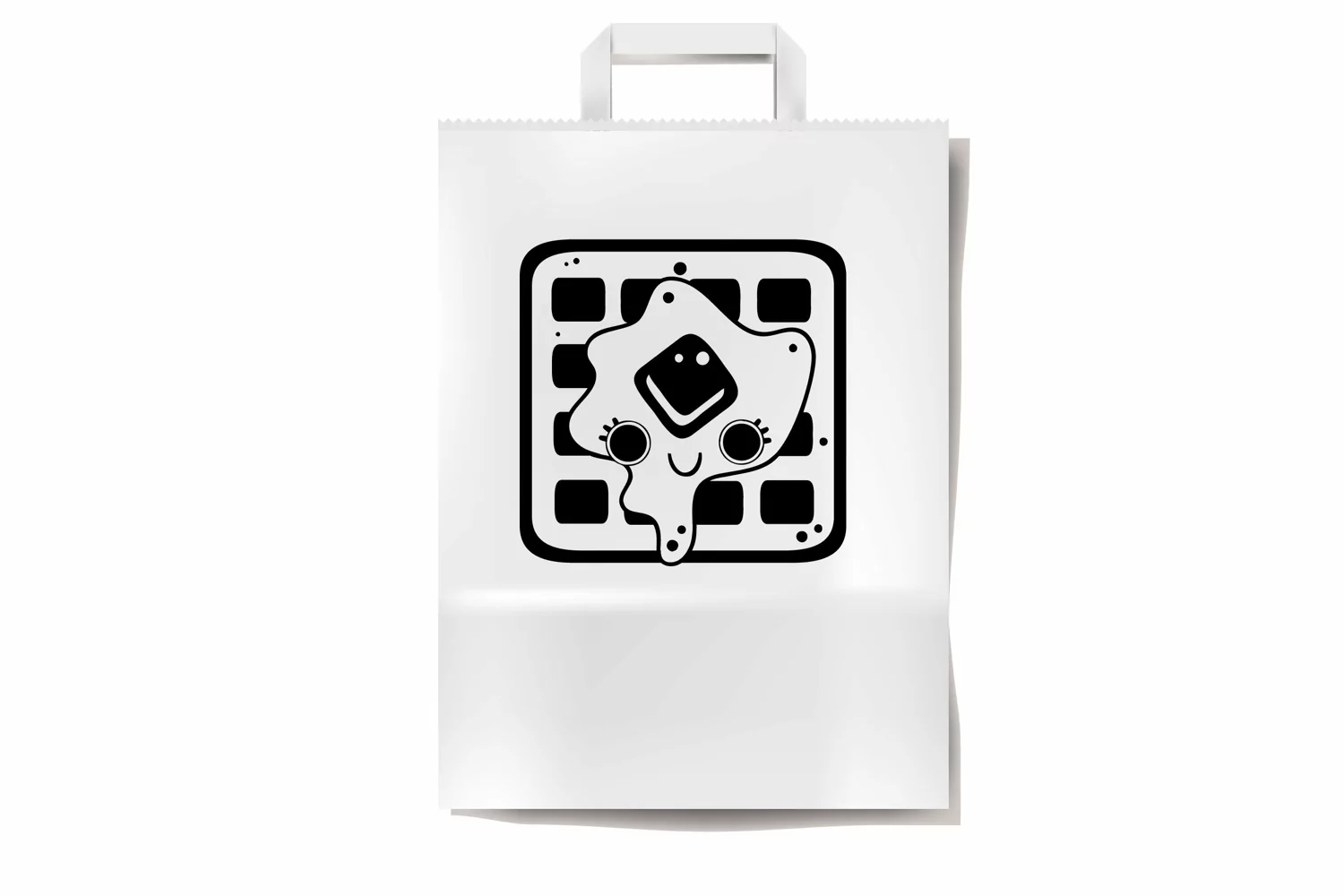
There are two dingbat fonts in this Dollicious bundle. One has 26 adorable dolls feature favorites foods and the other sports the "dollicious" foods. Each has at least 26 glyphs. Perfect for vinyl and cutting machines!